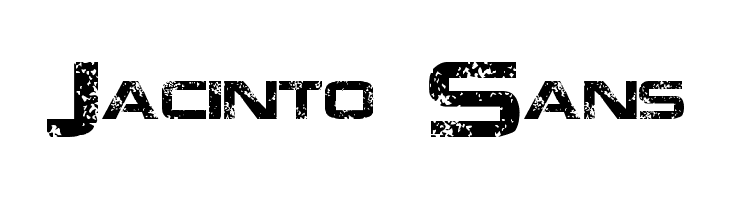
A bold, graffiti-inspired font with angular, geometric shapes and a rebellious aesthetic.
A bold, condensed font with a modern and uniform appearance.
A medieval-inspired font with bold, intricate characters and a historic flair.
A bold, textured font with a hand-drawn, distressed appearance.
A modern, semi-expanded sans-serif font with excellent legibility and balanced proportions.
A bold, geometric font with a playful, outlined style.
A playful, bold font with rounded, bubble-like characters.
A modern, geometric font with clean lines and a futuristic style.
A modern, geometric font with rounded edges and consistent stroke width.
A playful, bubbly font with rounded, thick strokes and a whimsical style.
A bold, italicized font with a dynamic, heroic style.
A modern, light sans-serif font with a sleek and balanced design.
A bold, extended font with a dynamic, vintage-inspired style.
A playful, heart-themed outlined font with a whimsical and romantic style.
A bold, high-contrast font with a modern and impactful design.
A bold, italic font with a dynamic and modern design, perfect for impactful headlines.
A whimsical, hand-drawn style font with playful, irregular letterforms.
A modern script font with elegant curves and flowing lines.
A bold, geometric, and extra-condensed font with a modern and futuristic style.
A bold, textured font with a hand-drawn, artistic style.
A digital, segmented font inspired by classic digital displays.
A modern sans-serif font with geometric shapes and uniform strokes.
A futuristic, geometric font with bold, angular lines.
A playful and whimsical script font with flowing, cursive letters.
A playful, hand-drawn font with tall, narrow letters and a casual style.
A romantic, cursive script font with elegant, flowing lines and decorative flourishes.
A playful, handwritten font with a bold, rounded style.